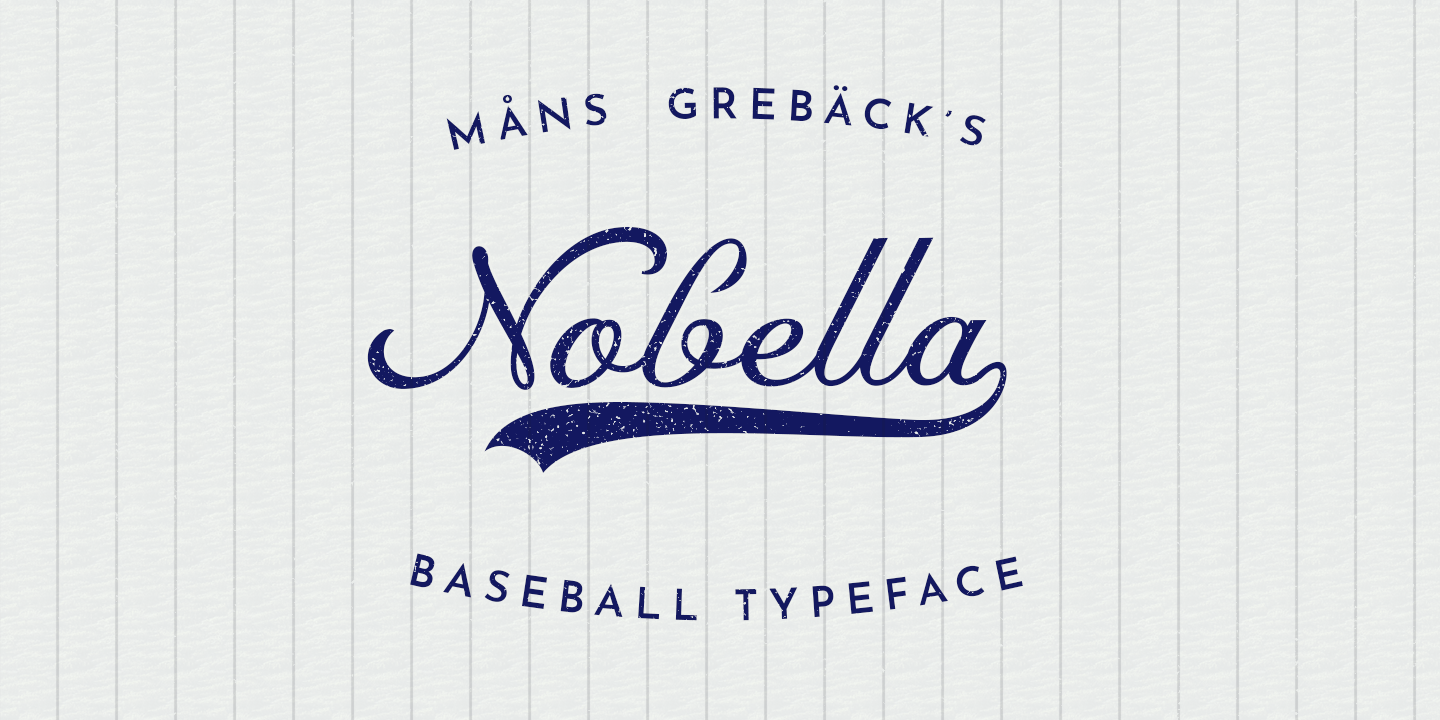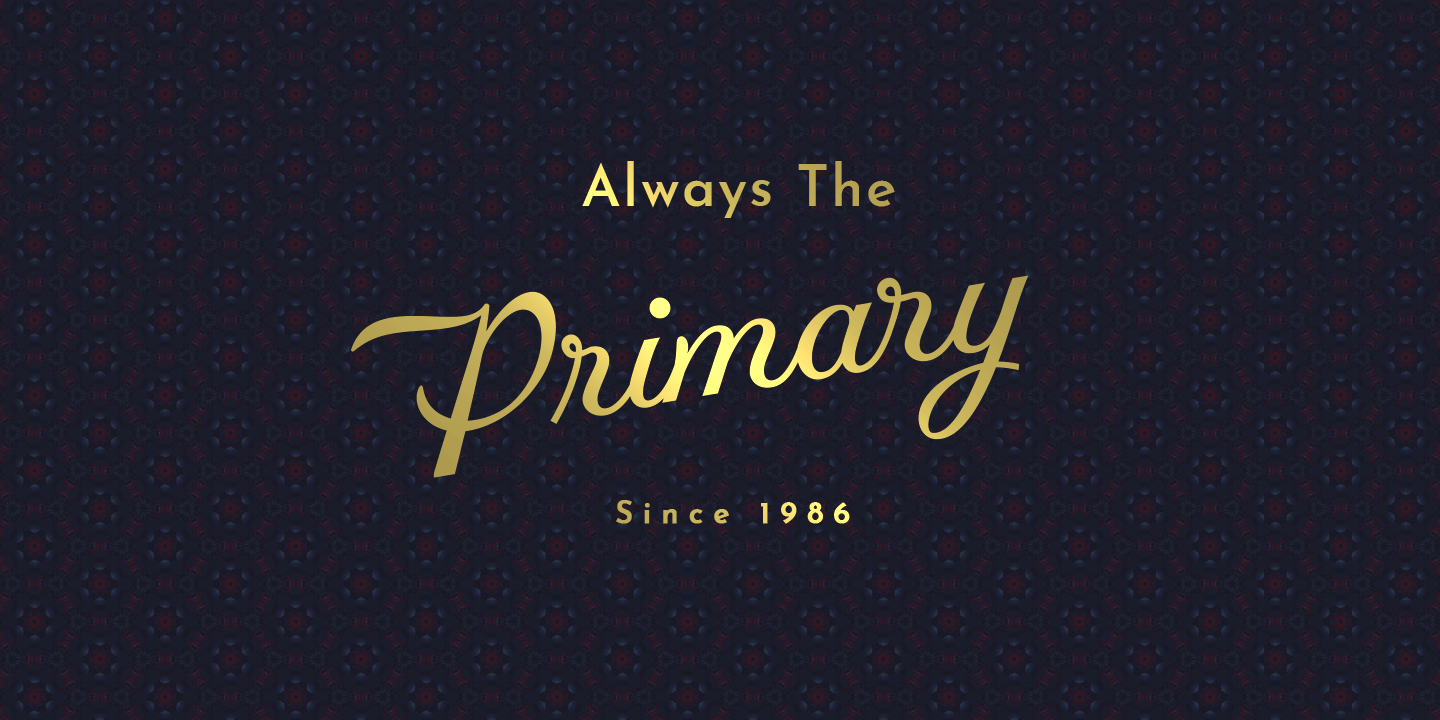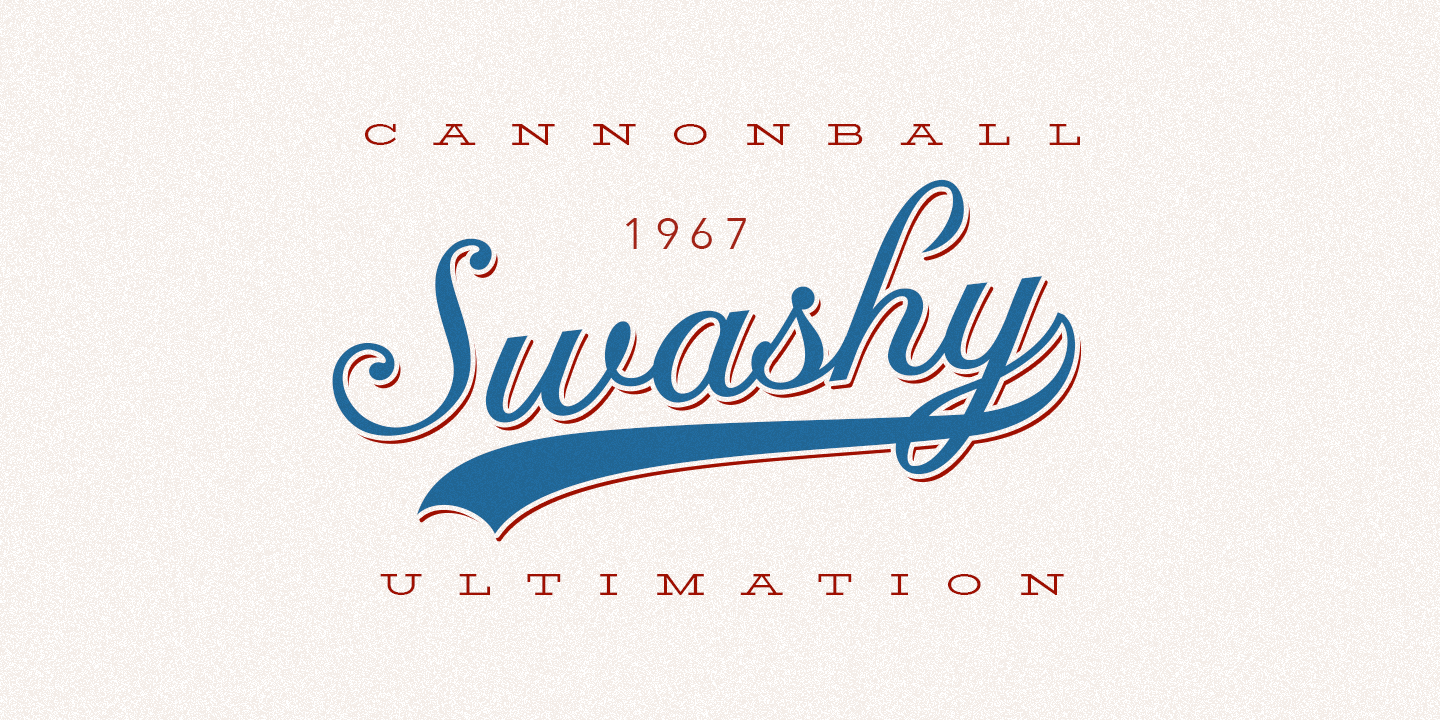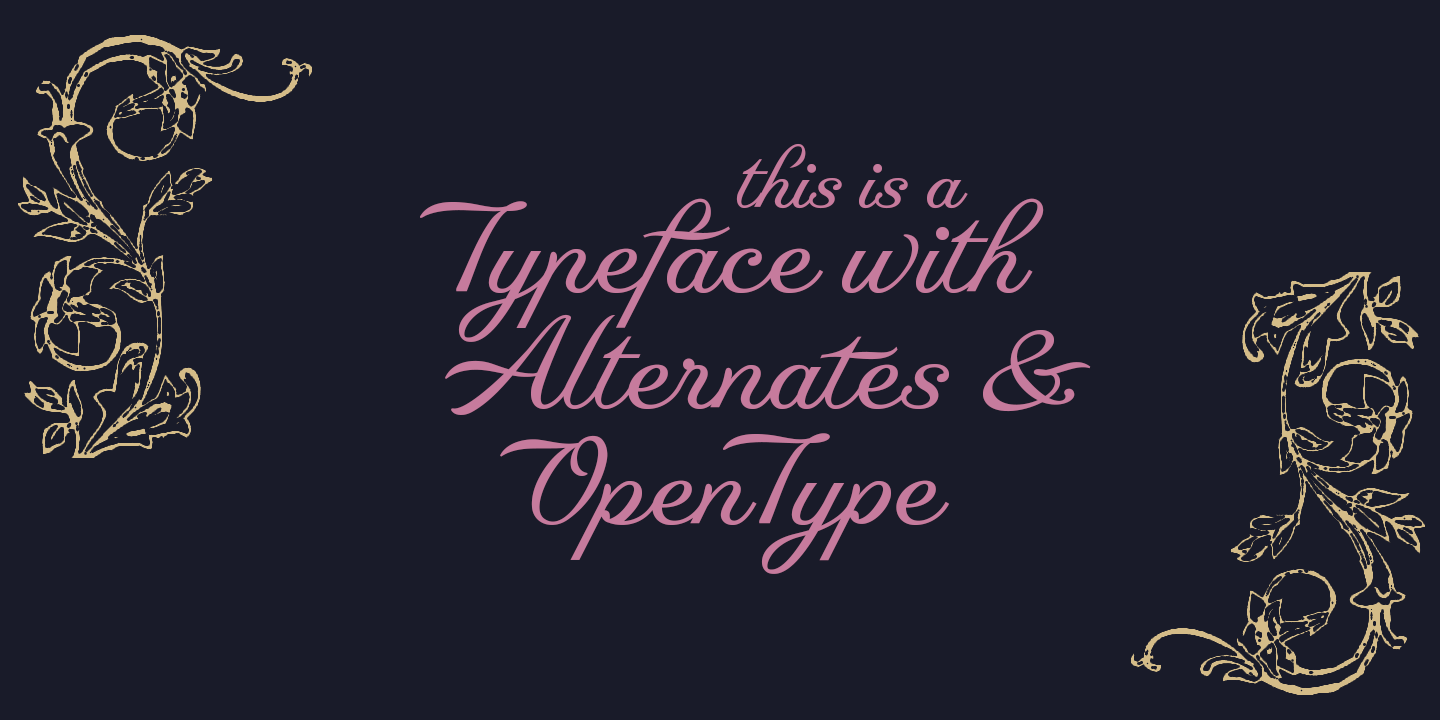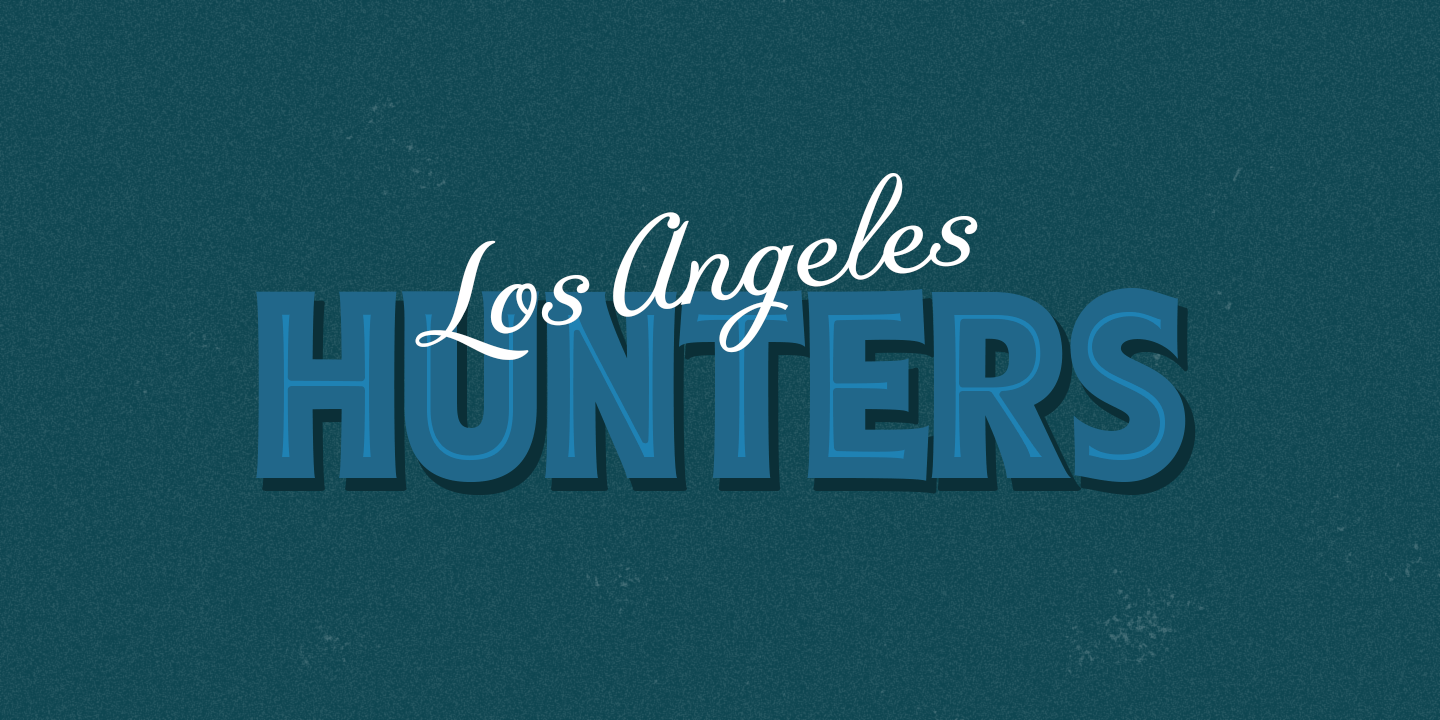
Nobella
Nobella is a flowing, mid-century script typeface, perfect for logos and sport-style graphics.
With its curly style and decorative swashes, this font could be considered a baseball classic and is guaranteed to give any logotype a creative, vivid appearance. Its thin parts and its large capital letters makes for a typeface that combines lightness with expressiveness.
Use underscore _ to make a swash. Example: Yankees_
Use multiple underscores to make swashes of different lengths. Example: New York________
The font contains all characters you’ll ever need, including all punctuation and numbers.
It contains contextual and stylistic alternates and many other OpenType features.
It supports all Latin based languages: North, East, West and Central European; North and South American; Southeast, North, Central Asian.